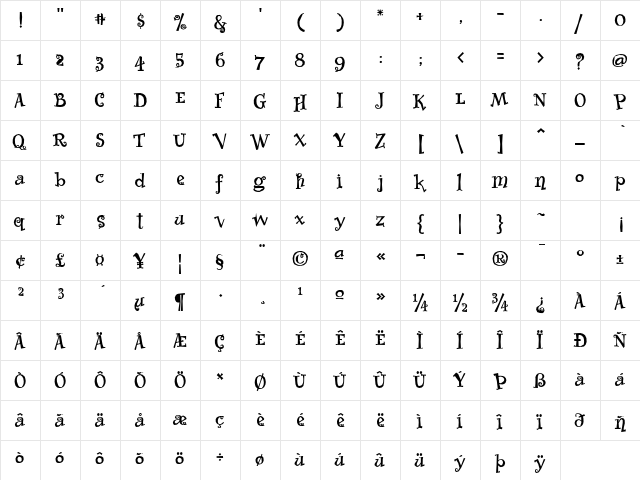
Whimsy ICG Bold Font Preview
Whimsy ICG Bold
Design Context for Whimsy ICG Typeface
Whimsy ICG is a composed and adaptable typeface that performs quietly and consistently across a wide range of design contexts. The heavy weight commands attention and anchors typographic hierarchies.